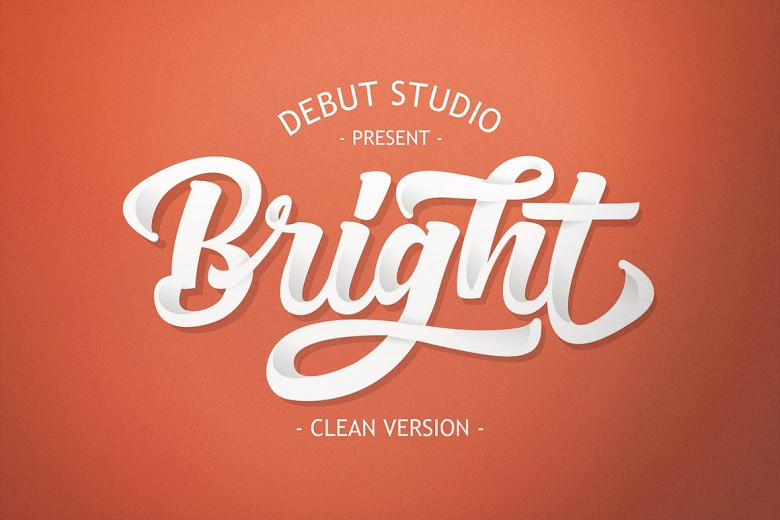
Bright Script Font
Bright Script Font – Free Demo
The best free font package today is a script font family. Introducing Bright! Bright designed and shared by Debut Studio. If you are a designer who likes other Logotype, brands, and other design needs that use bold, then you should have this font. This font is suitable for logo design purposes, using this font of your logo will be very cool and proffesional for t-shirt, branding product, and other design needs.